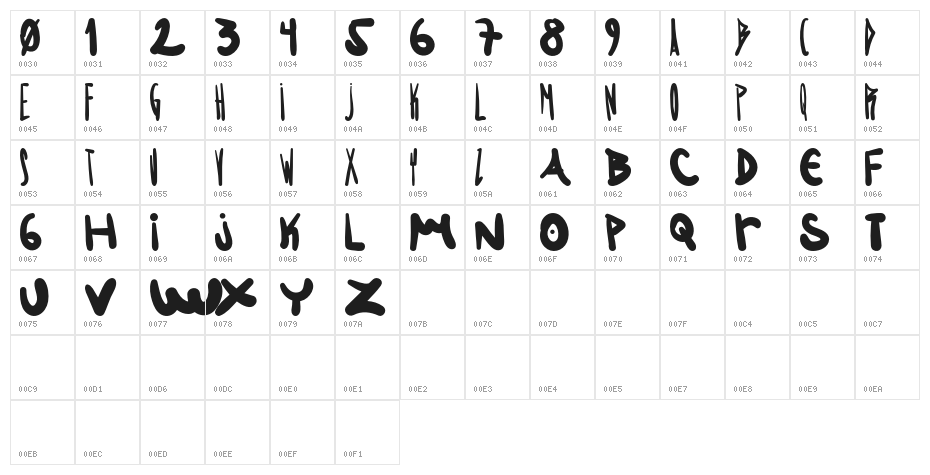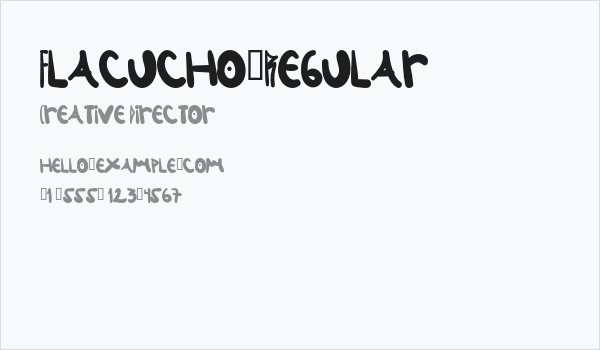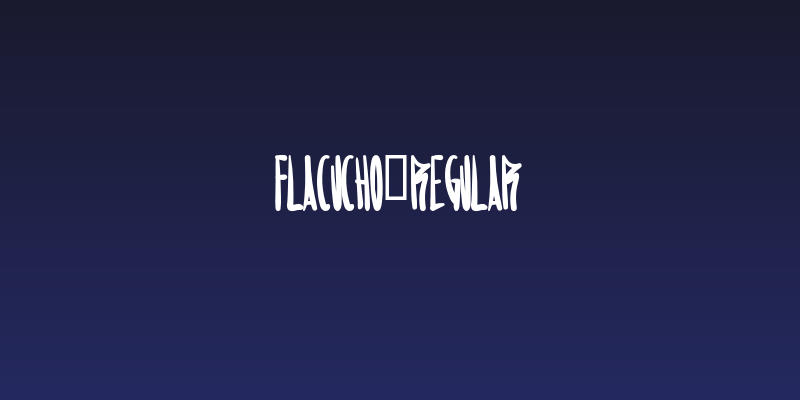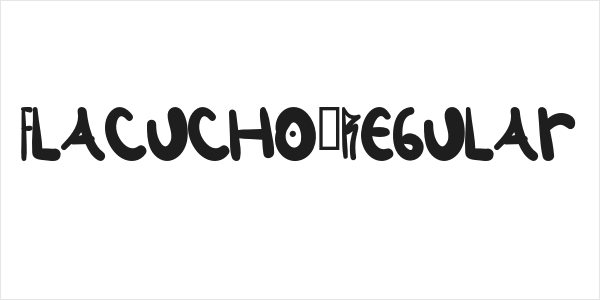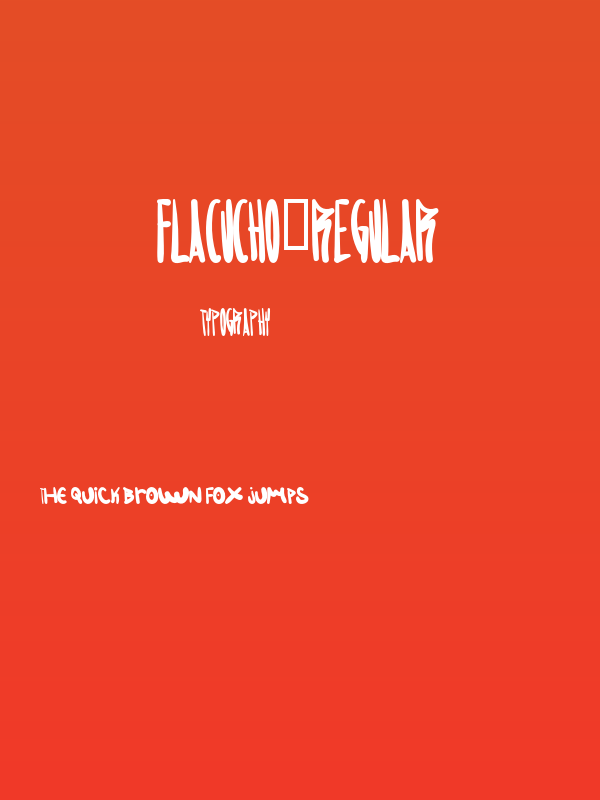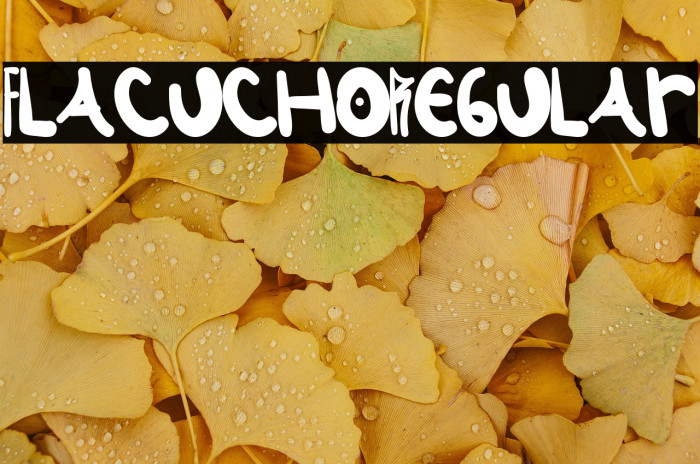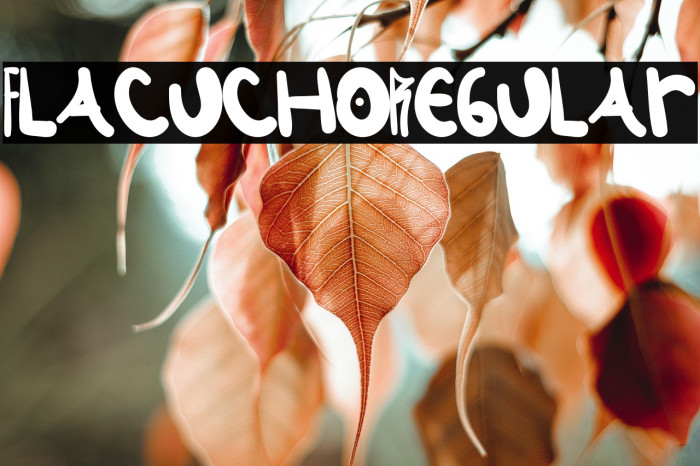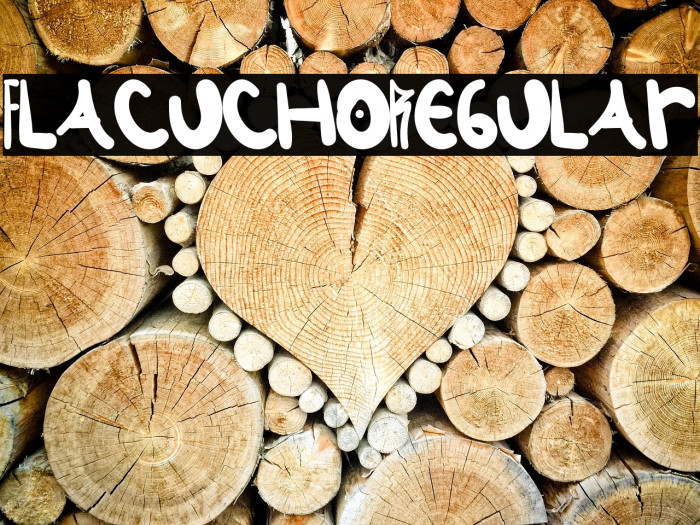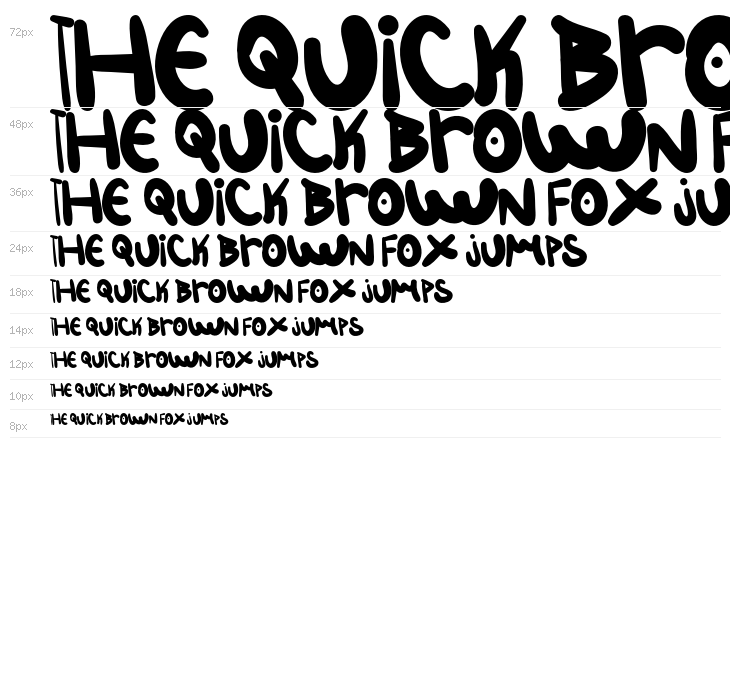
Flacucho-Regular Font
Flacucho-Regular Description
This font exhibits a playful and bold style with exaggerated, rounded forms and a hand-drawn appearance. The uppercase letters are tall and narrow, while the lowercase letters are more rounded and wide, creating a dynamic contrast. The numbers and special characters maintain the same whimsical and bold characteristics, making the font suitable for eye-catching designs. The overall look is informal and artistic, with a unique charm that stands out in creative projects.
| Overall Style | Playful, Artistic, Informal |
| Proposed Projects | Ideal for children's books, playful branding, posters, and creative invitations. |